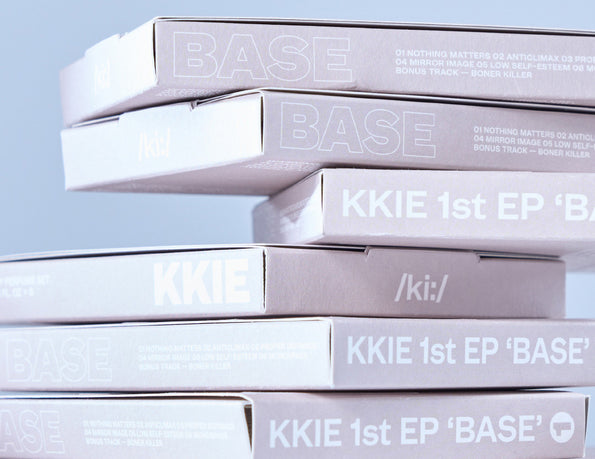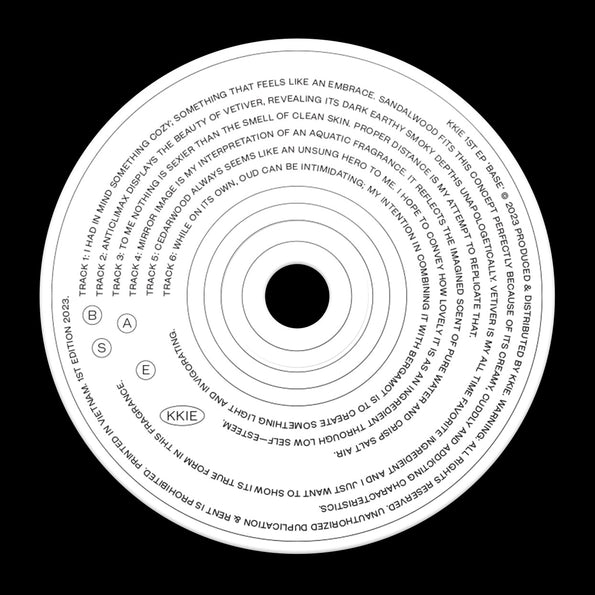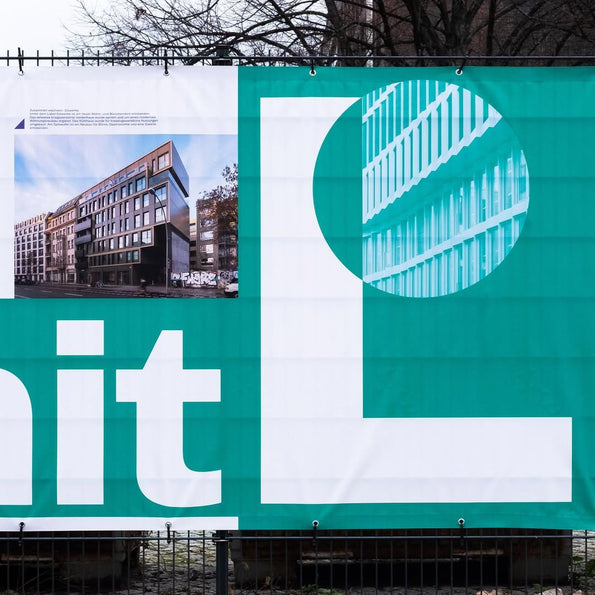
Mint Display
Now available in 3 widths + variable
Features
Stylistic set 1
Stylistic set 2
Stylistic set 3
Stylistic set 4
Uppercase substitution
Tabular figures
Superior / Inferior
Numerator / Denominator
Arrows and pictograms
Built like a workhorse yet playful like a kitten, Mint is a grotesk typeface with an eccentric personality. Mint Grotesk is a 16 weights, sturdy, no-nonsense sans-serif with some 19th century quirkiness. While you can use Mint Grotesk for smaller and longer text it also packs a punch at larger sizes.
Mint Grotesk Display is the showy cousin of Mint Grotesk and it is also available in 16 weights but has been updated with different widths. More expressive than Mint Grotesk, its high contrast and fine details make the text pop at larger sizes. You’ll want to use it without moderation!
Design
Sébastien Sanfilippo
Team
Manuel de Lignières Igino Marini
Release
2025
Set
550 glyphs